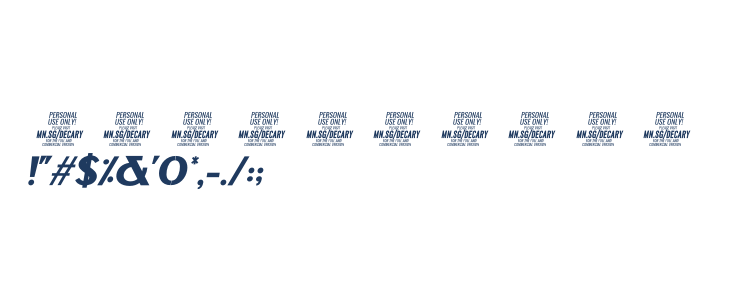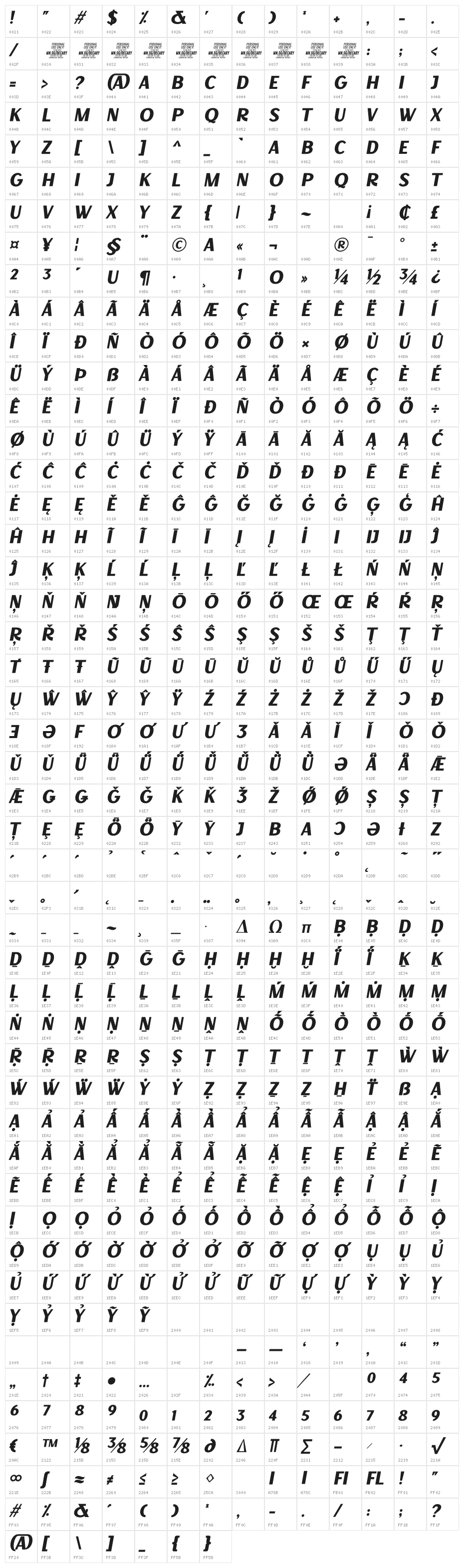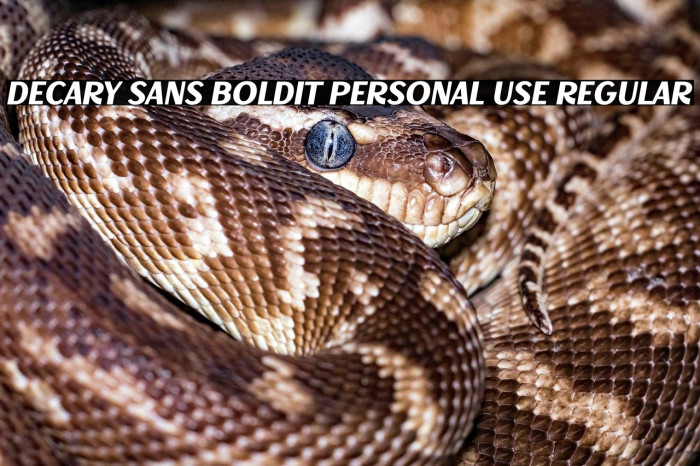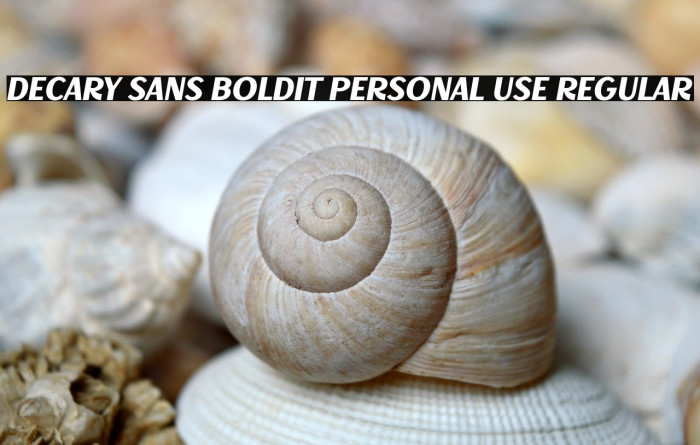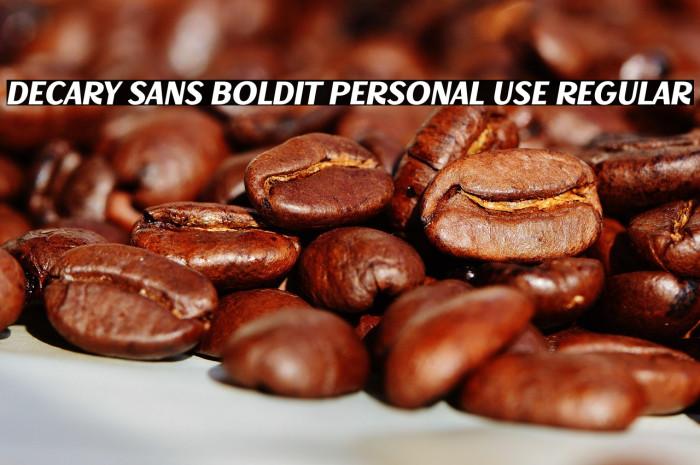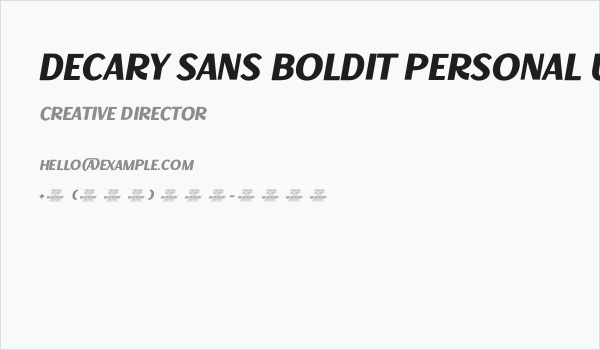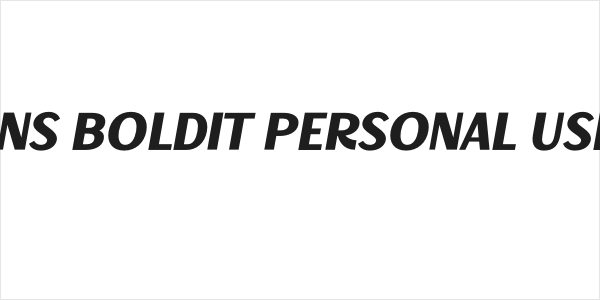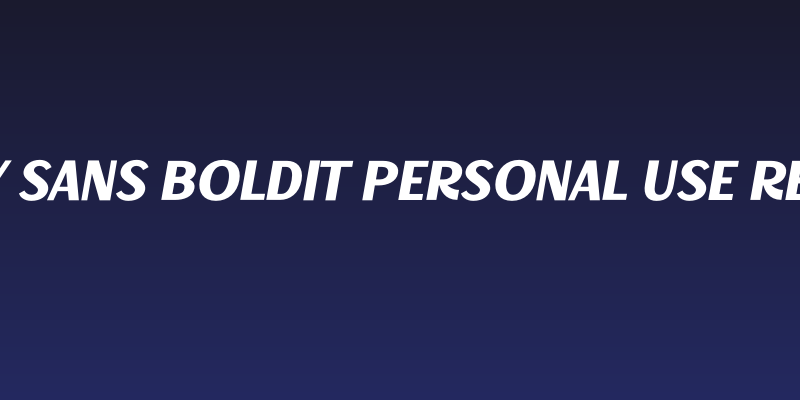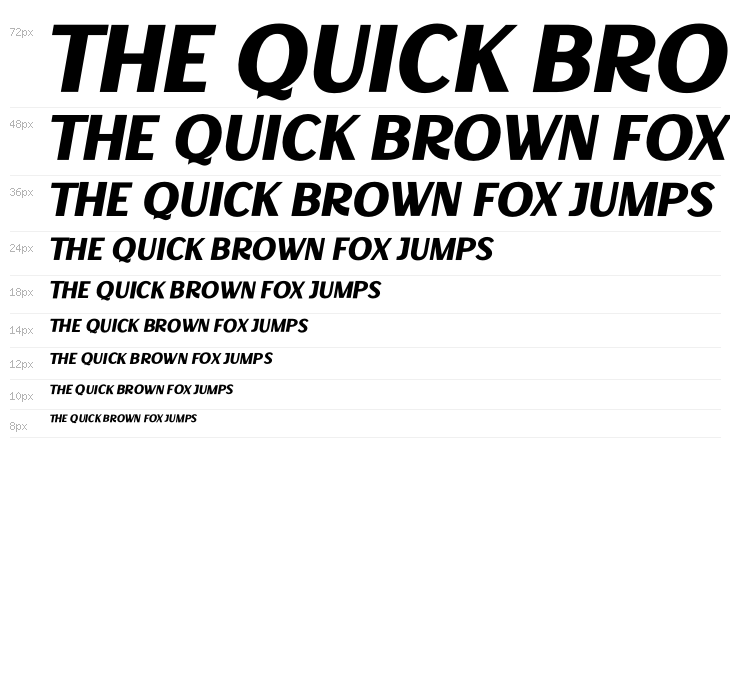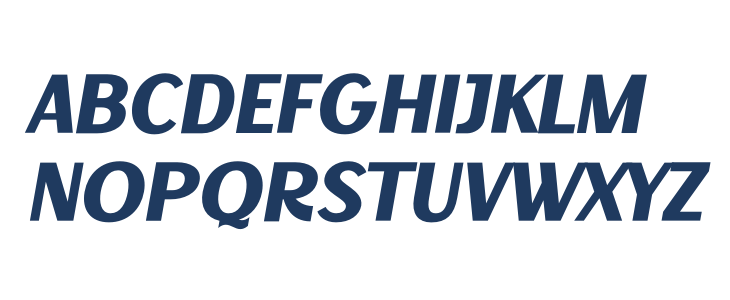
Decary Sans BoldIt PERSONAL USE Regular Font
Decary Sans BoldIt PERSONAL USE Regular Description
This font features a bold and italicized style, characterized by its strong, dynamic presence. The letters are slightly slanted, adding a sense of motion and energy. The strokes are thick and consistent, providing a robust appearance that commands attention. The uppercase and lowercase letters maintain a uniform width, contributing to a cohesive look. The numbers and special characters are designed to match the bold aesthetic, ensuring consistency across all elements. This font is ideal for making a statement, with its striking and assertive design.
Proposed ProjectsIdeal for headlines, posters, branding materials, and any project requiring a bold, impactful statement.